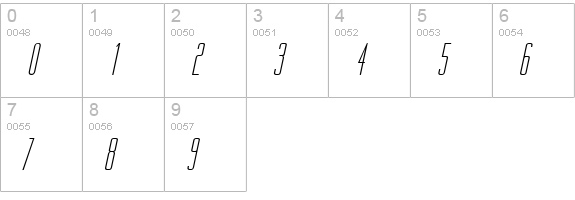
Gorgio Italic is a distinctive, italic variant in the Gorgio typeface family \xE2\x80\x94 well suited to design and typography projects.
Gorgio Italic font exudes elegance and sophistication with its sleek and flowing design. The graceful curves and stylish angles of this typeface make it perfect for adding a touch of class to any project. Whether you're designing a wedding invitation, a business card, or a poster, Gorgio Italic is sure to make a lasting impression. What's even better is that Gorgio Italic is available for free download at FontsMarket.com. That's right, you can enhance your designs with this exquisite font without spending a dime. So why wait? Download Gorgio Italic today and elevate your typography game to new heights.